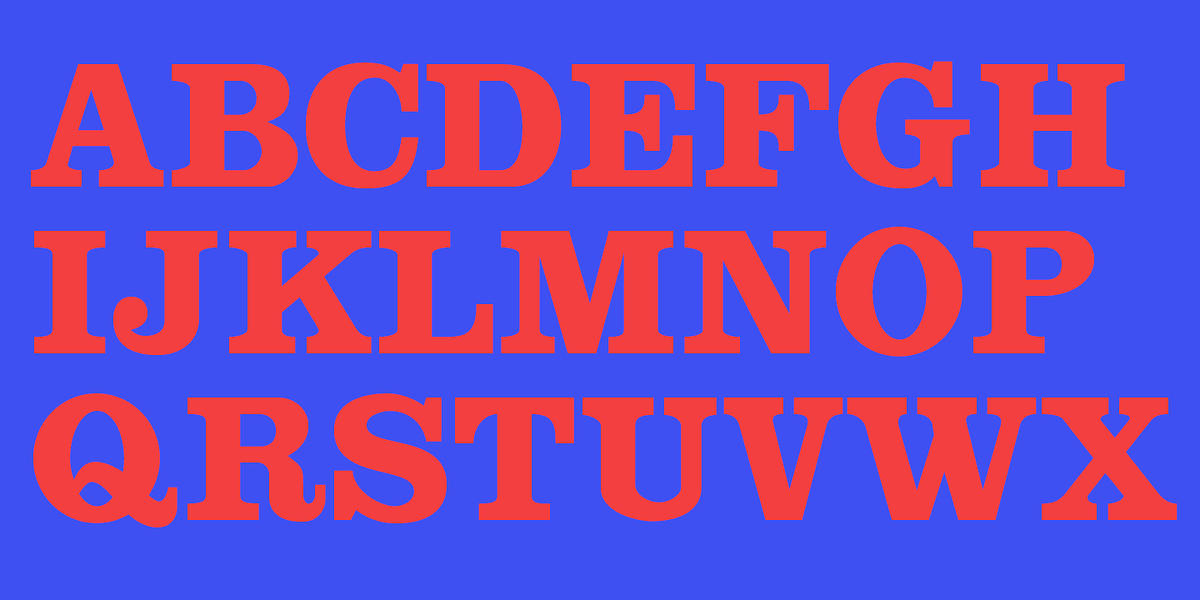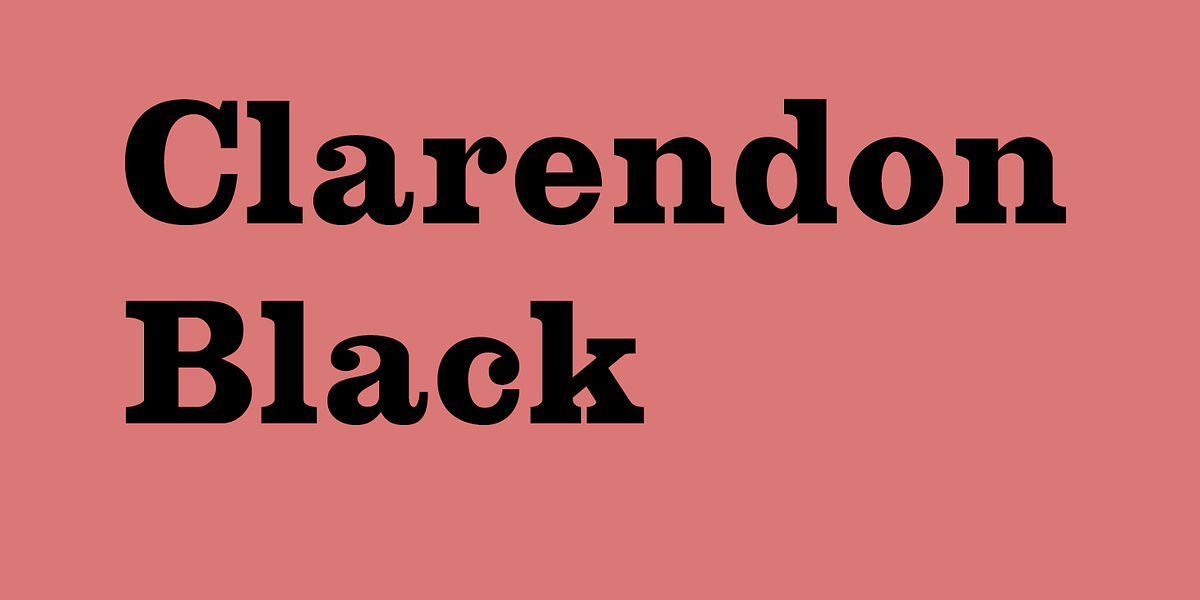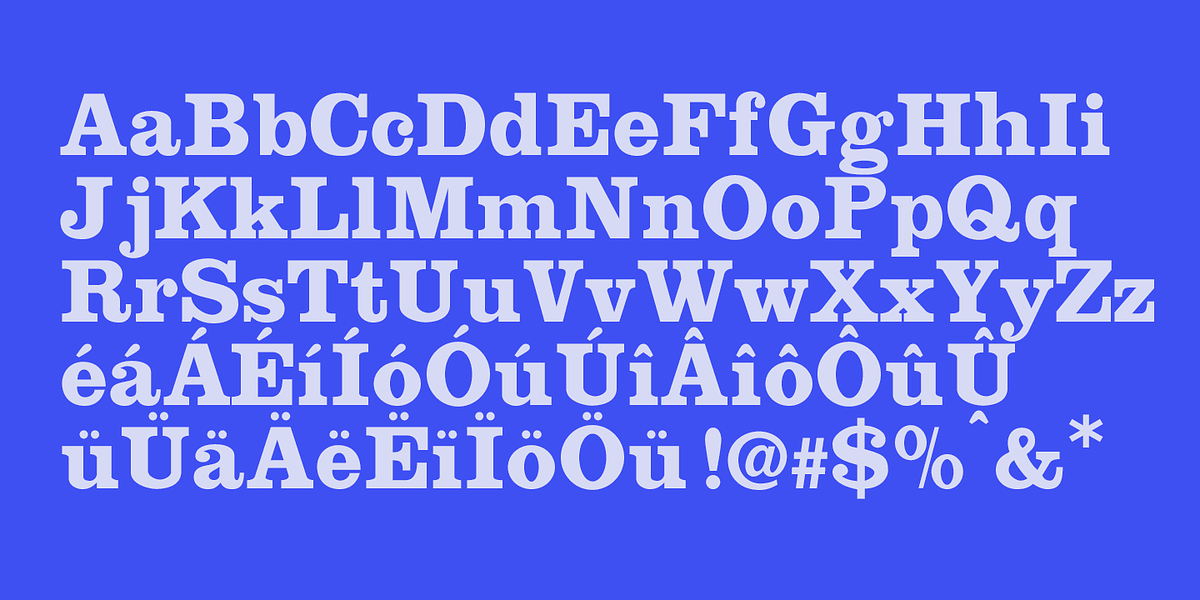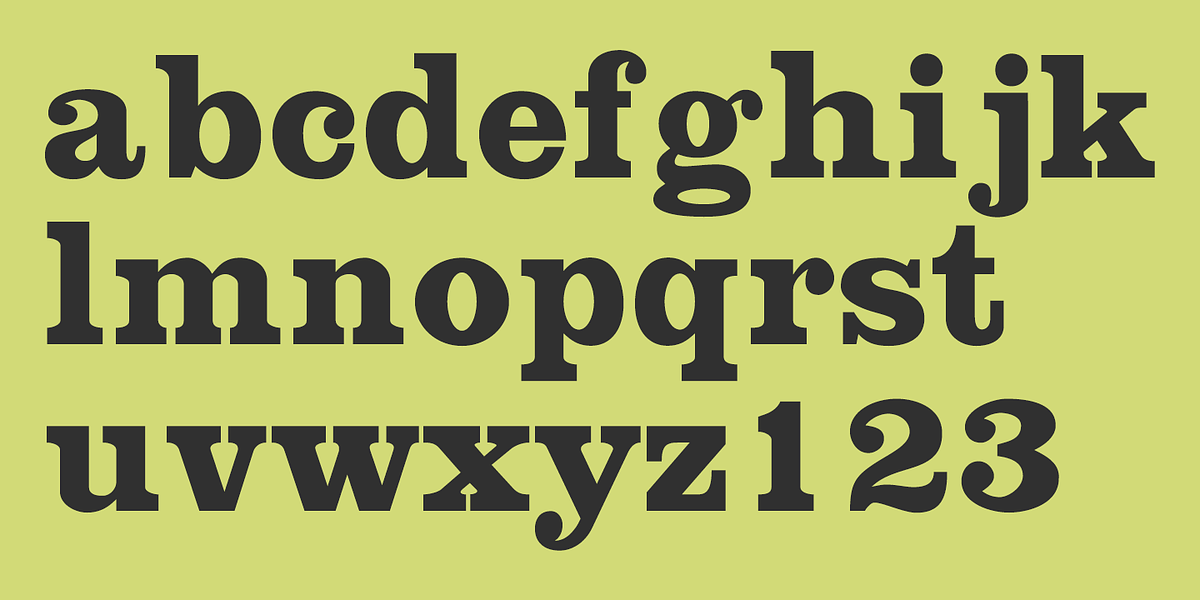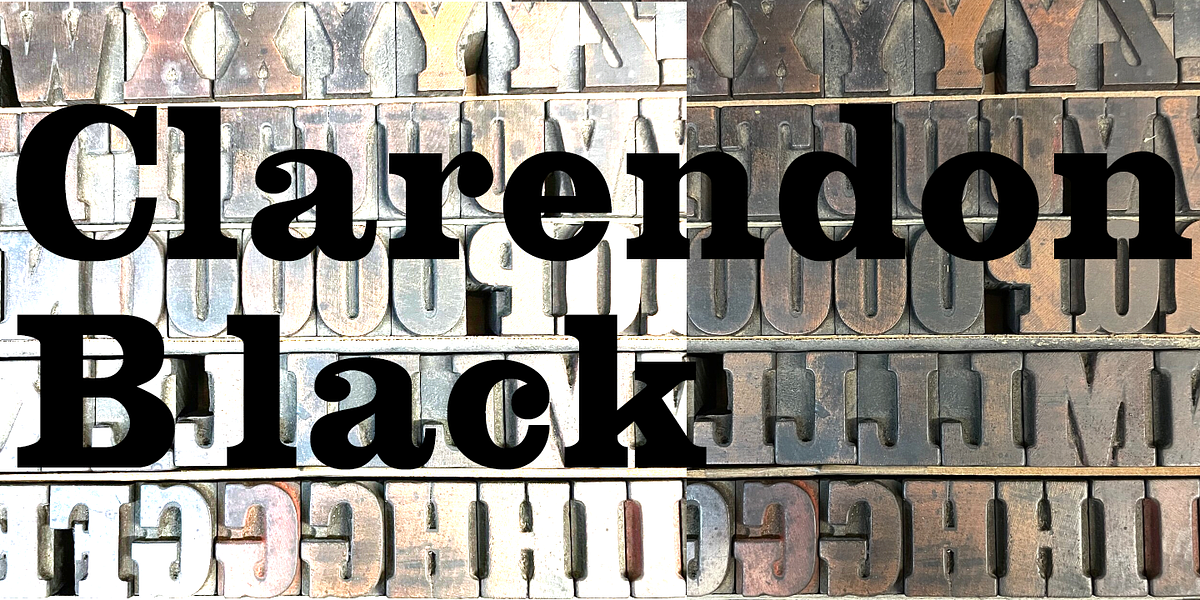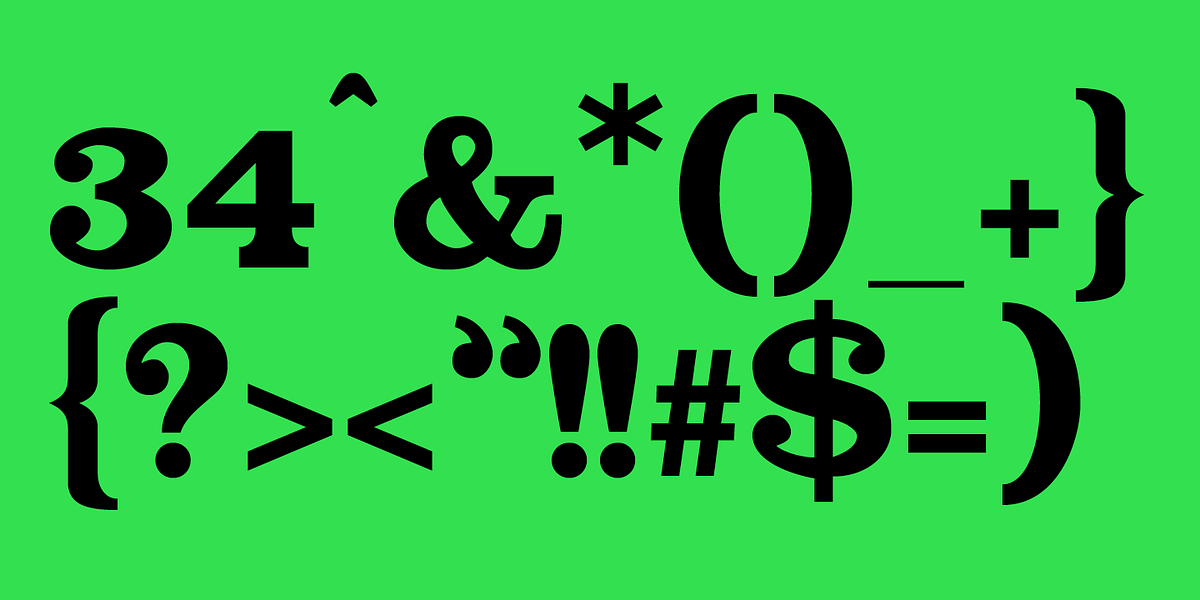
Clarendon Black
Clarendon Black is a bold and heavy grotesque slab serif font designed for headlines and display text. Its high contrast and dark weight make it a strong choice for grabbing attention.